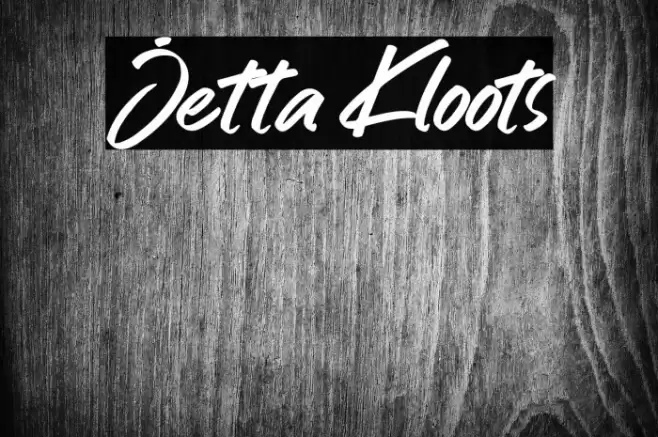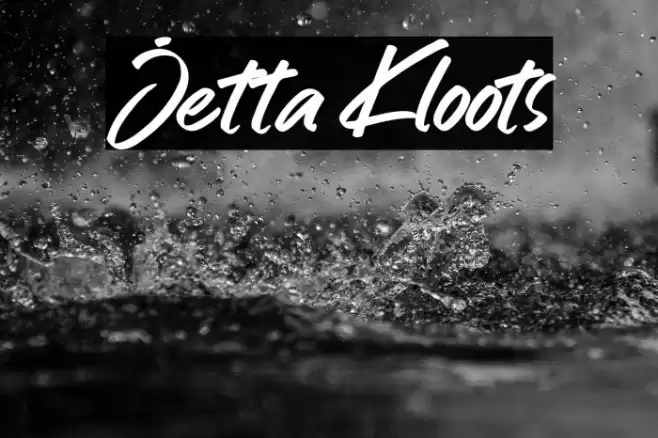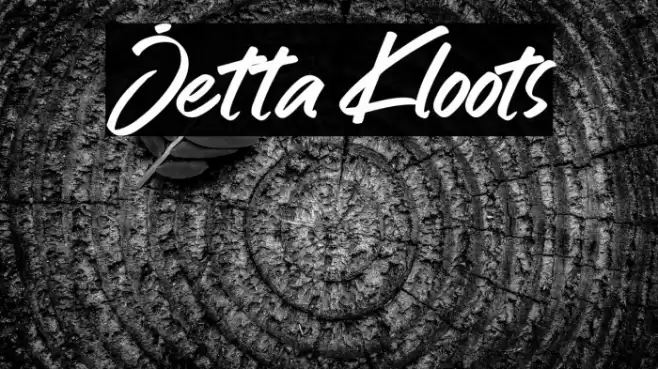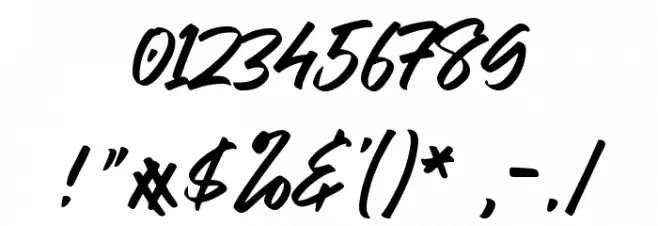
Jetta Kloots Font
Jetta Kloots Description
This font exudes a dynamic and energetic style, characterized by its bold, cursive script. The strokes are fluid and expressive, with a natural handwritten feel that adds a personal touch to any design. The uppercase letters are particularly striking, with a slight slant that enhances the sense of movement. The lowercase letters maintain a consistent flow, complementing the uppercase with their smooth curves. Numbers and special characters are crafted with the same attention to detail, ensuring a cohesive look across all elements. This font is perfect for projects that require a touch of elegance and personality.
A bold, cursive script font with a dynamic, handwritten style from Regular fonts.
- Proposed Projects: Ideal for branding, invitations, greeting cards, and social media graphics.
- Use Case: Logos, Headlines, Invitations